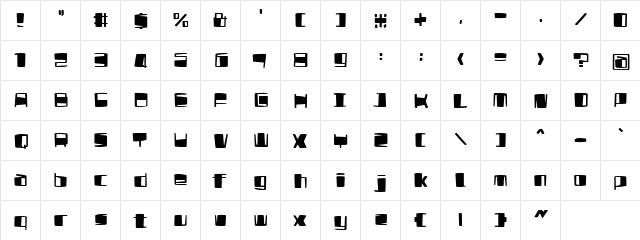
UltraComicalphabet Regular Font Preview
UltraComicalphabet Regular
UltraComicalphabet Regular Font Details
Design Context for UltraComicalphabet Typeface
UltraComicalphabet has an approachable, lighthearted character — its loose, expressive forms are well-suited to children's content, casual branding, and fun-first design.
Font Pairing: Pairs well with a rounded or humanist sans for body copy, maintaining the friendly tone without relying on UltraComicalphabet to carry extended reading.
Pro Tip: Use UltraComicalphabet at larger display sizes where its expressive character can land. Pair with a clean, simple sans for body copy to maintain readability.